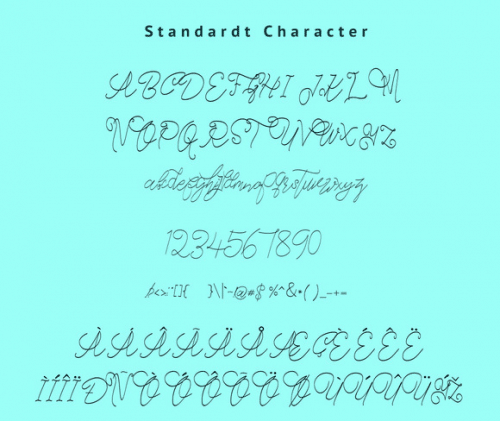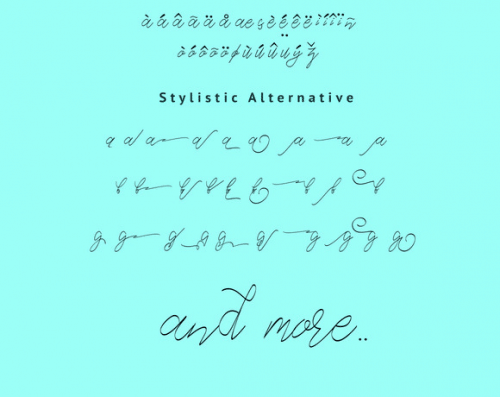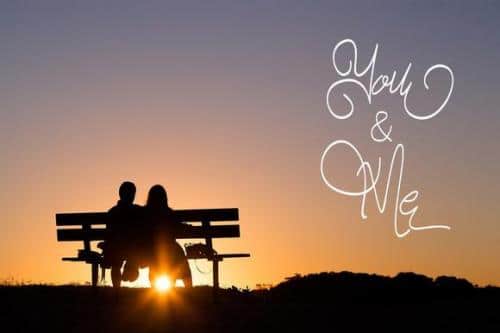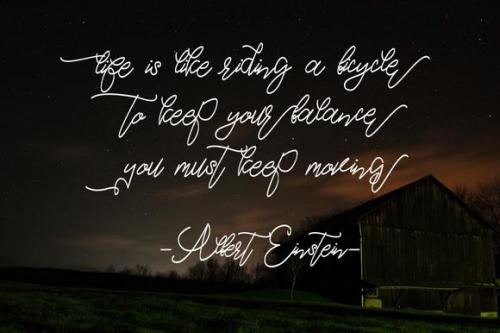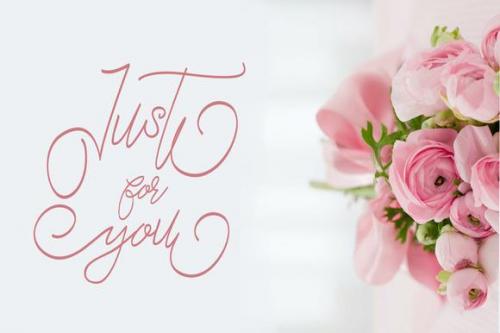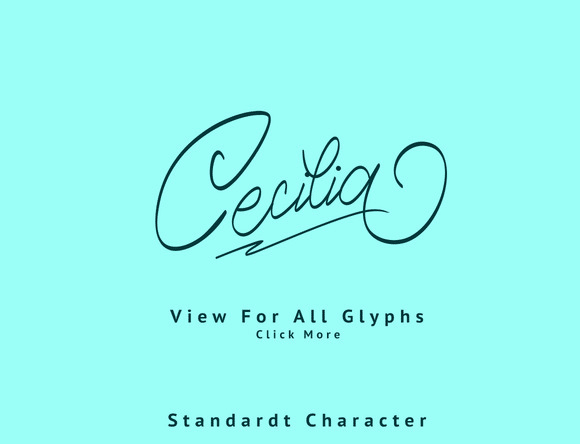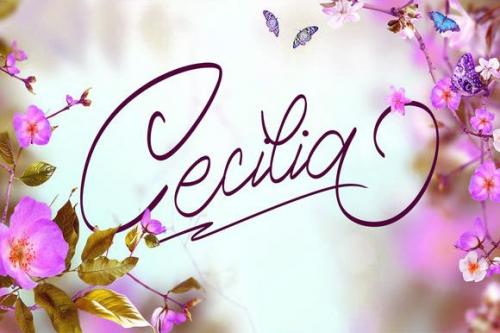
Cecilia Script is a calligraphy style font with a smooth line, dancing baseline, clean, classic and elegant touch. Can be used for various purposes.such as headings, signature, logos, wedding invitation, t-shirt, letterhead, signage, lable, news, posters, badges etc.
Cecilia Script features 394 glyphs and 224 alternate characters. including initial and terminal letters, alternates, ligatures and multiple language support.